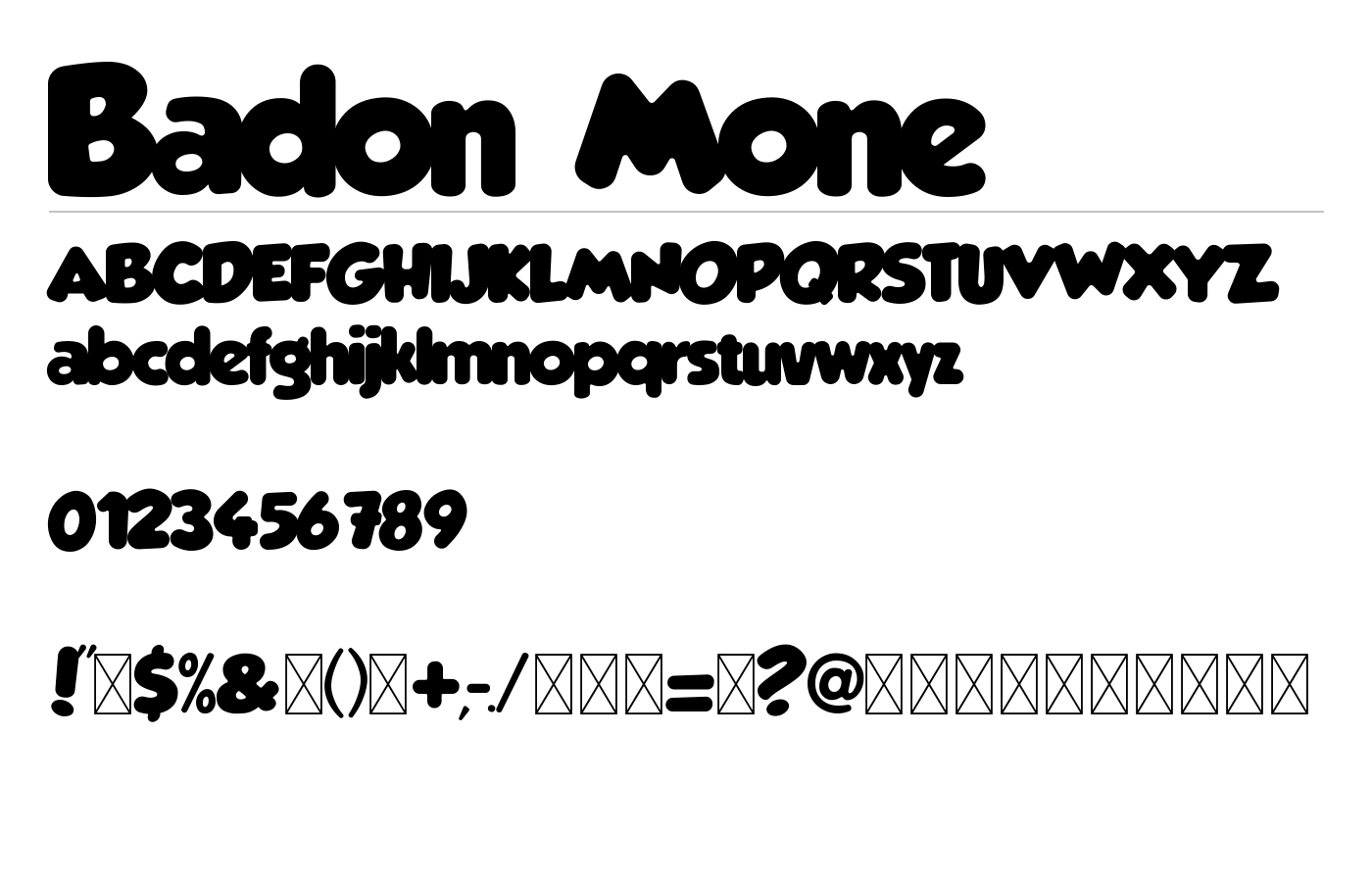
Badon Mone is a bold, playful sans serif font with rounded, chunky letterforms that give it a friendly and approachable personality. Its heavy weight and generous x-height make it highly visible and ideal for headlines, logos, and packaging where a fun, informal vibe is desired. This font works well for branding aimed at a young or casual audience, bringing a sense of warmth and cheerfulness to any design.
Badon Mone Font
About Badon Mone Font
| Font family | Badon Mone Font |
| Designer | Christmas Kalingga Abed Nego |